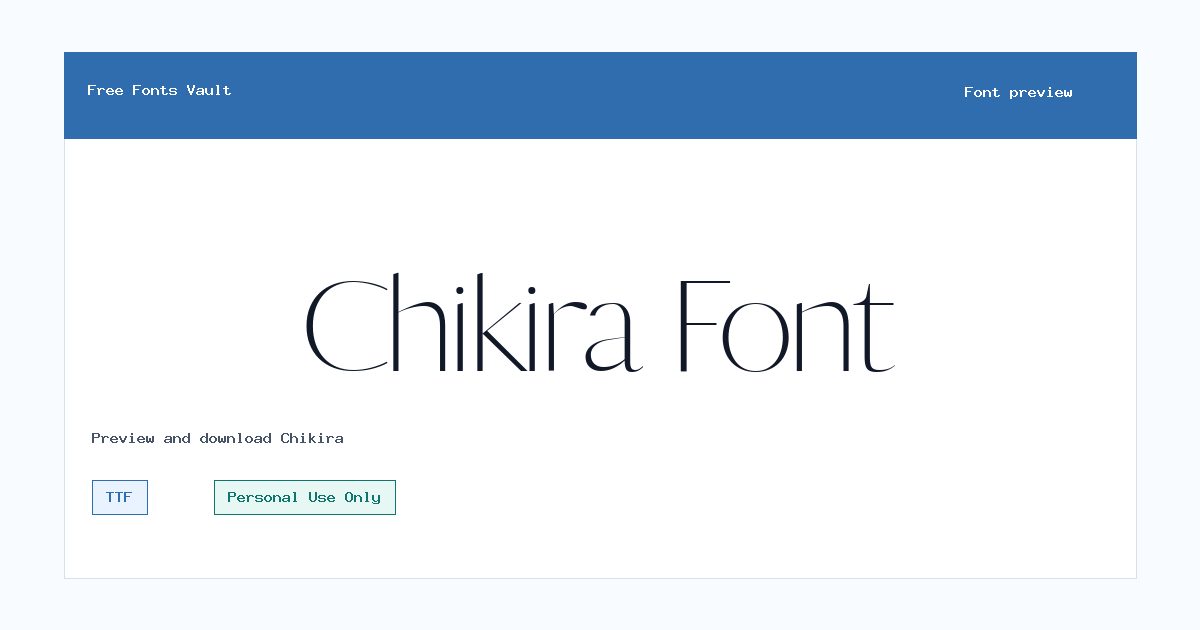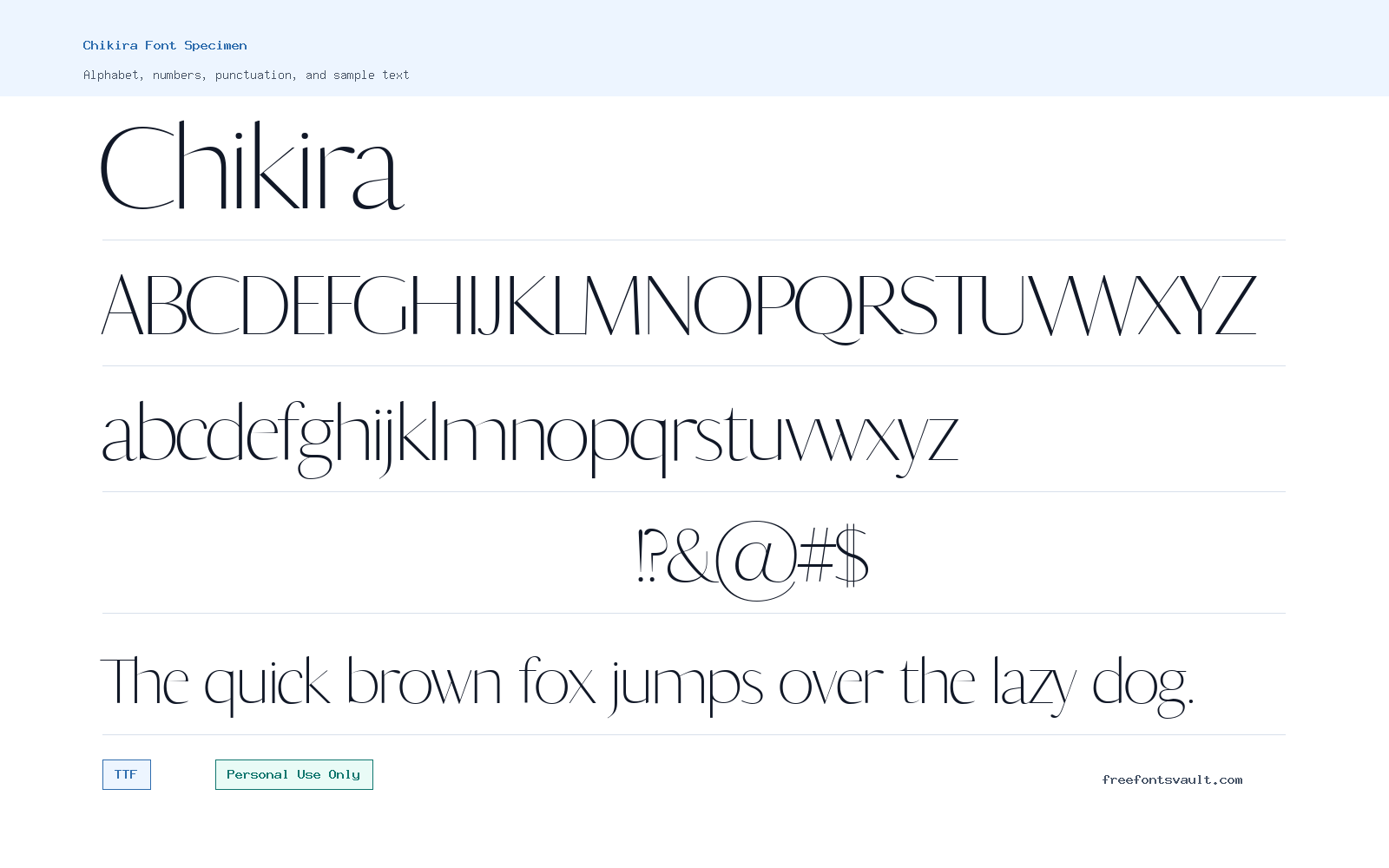
Chikira
Chikira is a sans serif font for personal projects, offered as a regular TTF font file. Its clean structure makes it easy to test in the preview tool before using it in a design.
About Chikira Font
Chikira works best when you need a straightforward sans serif voice without adding too much decoration. The regular style keeps the design simple, so it can fit short headings, name graphics, small posters, web mockups, and personal branding drafts. Because only one regular weight is included, it is better suited to clear, direct text than to complex typography systems that need many weights or italics.
Use the preview box to test Chikira with your own words before downloading. Try uppercase titles, mixed-case names, short phrases, numbers, and punctuation so you can see how the spacing feels in real use. If you plan to use it for a logo draft, invitation, thumbnail, or social post, check it at the actual size you need. A font can look balanced in a large preview but feel too light, too tight, or too plain once it is placed inside a finished layout.
- Regular sans serif style with normal weight for clean display and short text settings.
- Personal title designs, posters, thumbnails, invitations, and social media graphics.
- Simple branding drafts, mood boards, web mockups, and short headline layouts.
Pair Chikira with a readable text font if your project includes longer paragraphs. Let Chikira handle the headline or short accent text, then use a neutral serif or highly readable sans serif for body copy. Since the download contains a regular style only, avoid relying on bold, italic, or multiple-weight hierarchy unless your design software creates faux styles, and review those carefully before exporting.
What kind of projects suit Chikira?
Chikira is best for short personal-use text such as headings, posters, social graphics, mockups, name designs, and simple layout experiments.
Can I use Chikira for long paragraphs?
You can test it, but it is safer to use Chikira for short display text. For long reading, pair it with a font designed for comfortable body copy.
Does Chikira include multiple weights?